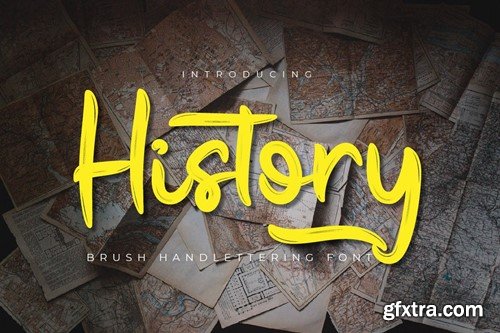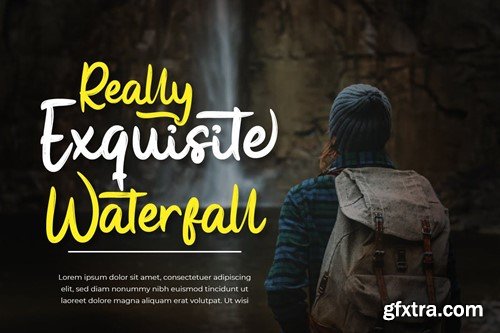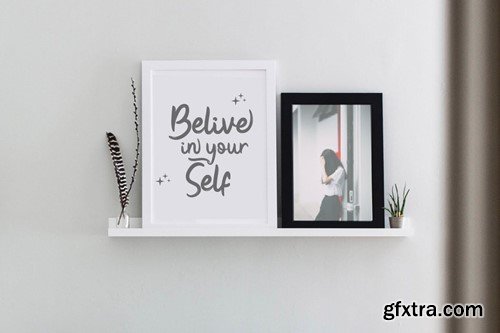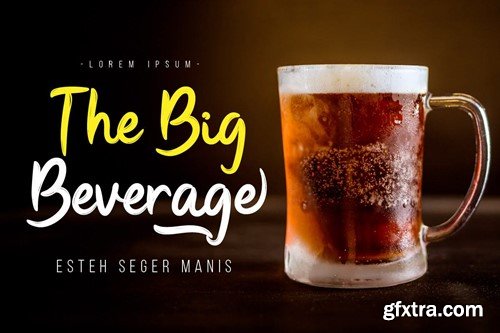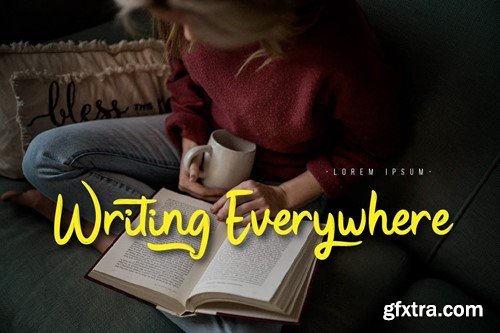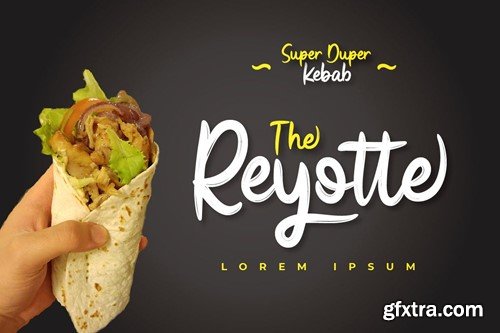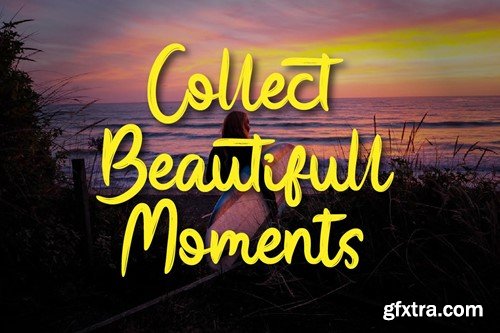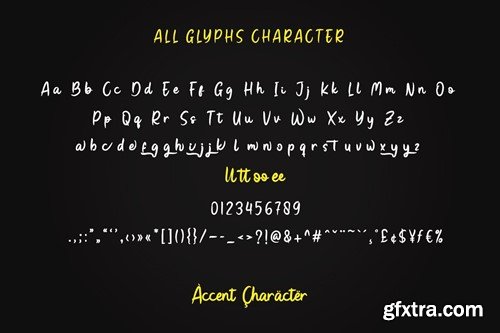
历史 - 简笔手写字体 AHM2HK6
History - Brush Handwritten Font AHM2HK6
History - Brush Handwritten Font
Take a trip down memory lane with History - Brush Handwritten Font, the font that's steeped in nostalgia and tradition! With its elegant strokes and vintage charm, History adds a touch of old-world elegance to every project. Whether you're designing antique signage, crafting retro-inspired branding, or creating timeless product packaging, History is your go-to font for capturing the timeless beauty of the past. Get ready to create designs that stand the test of time with History - the font that's classic, elegant, and oh-so-charming!